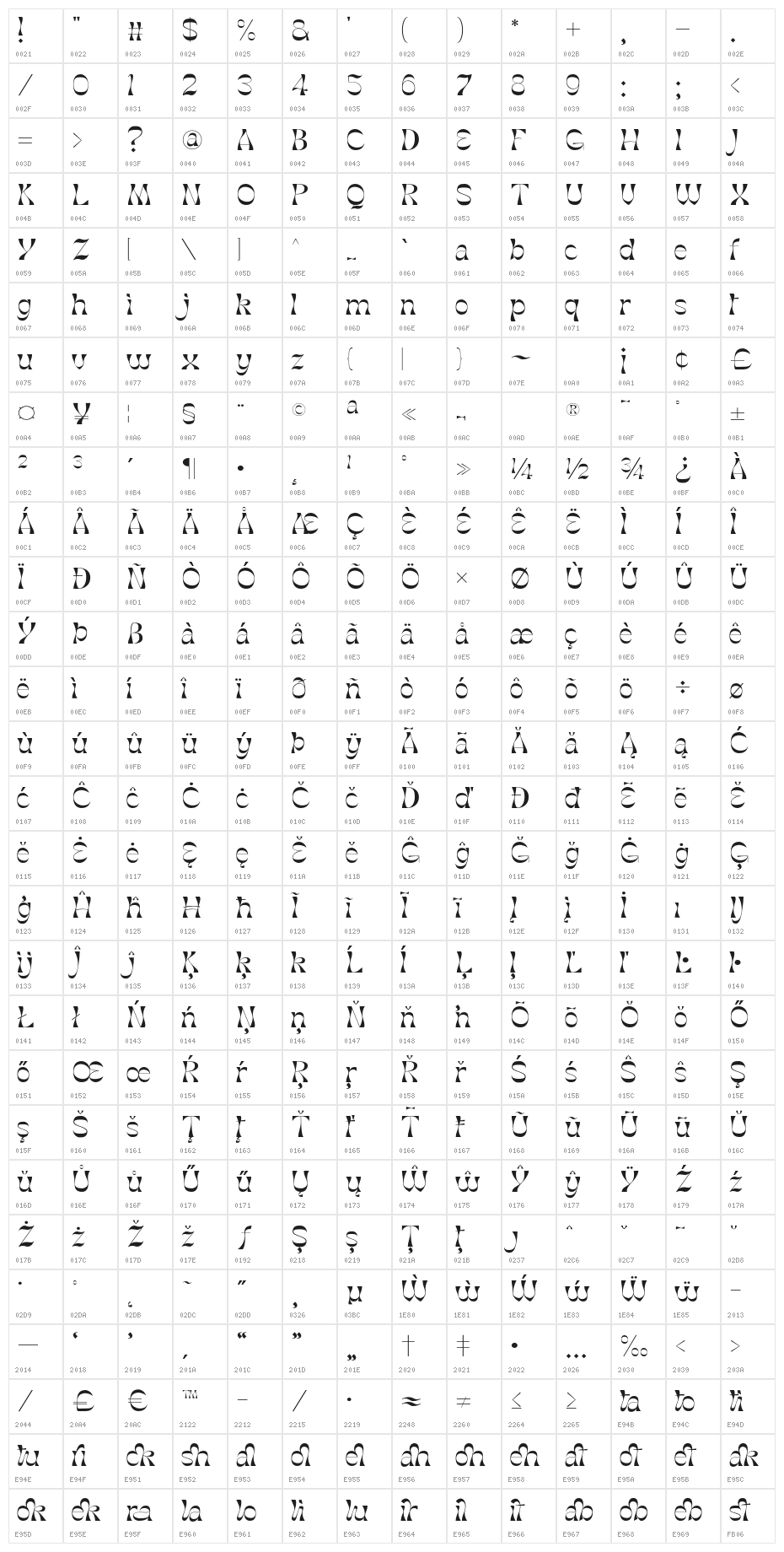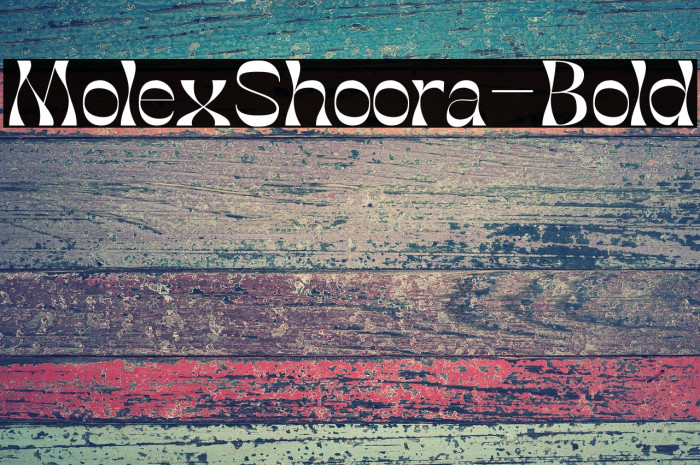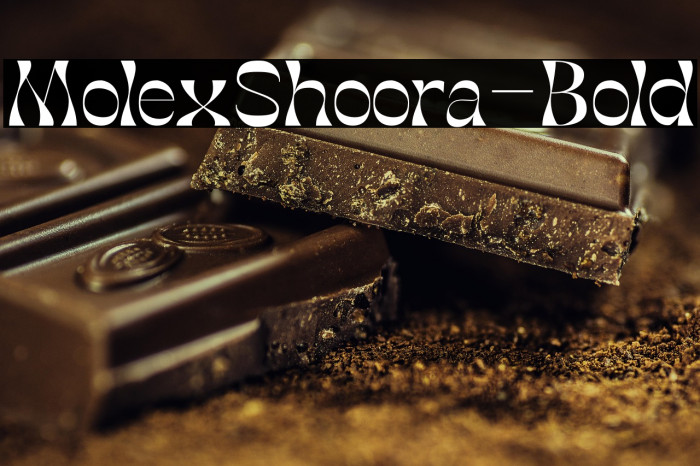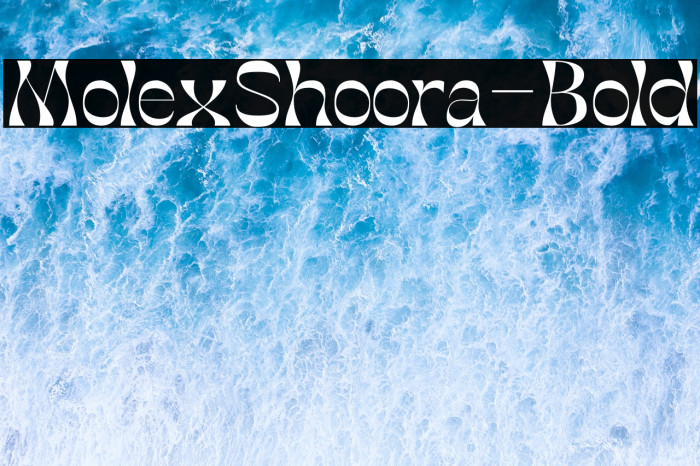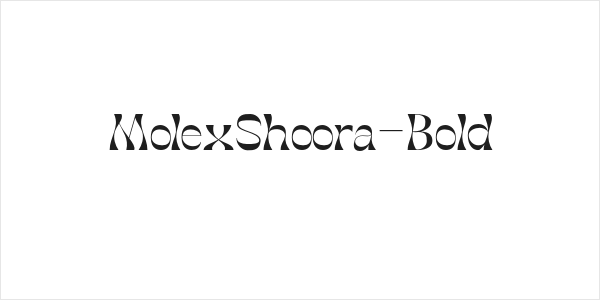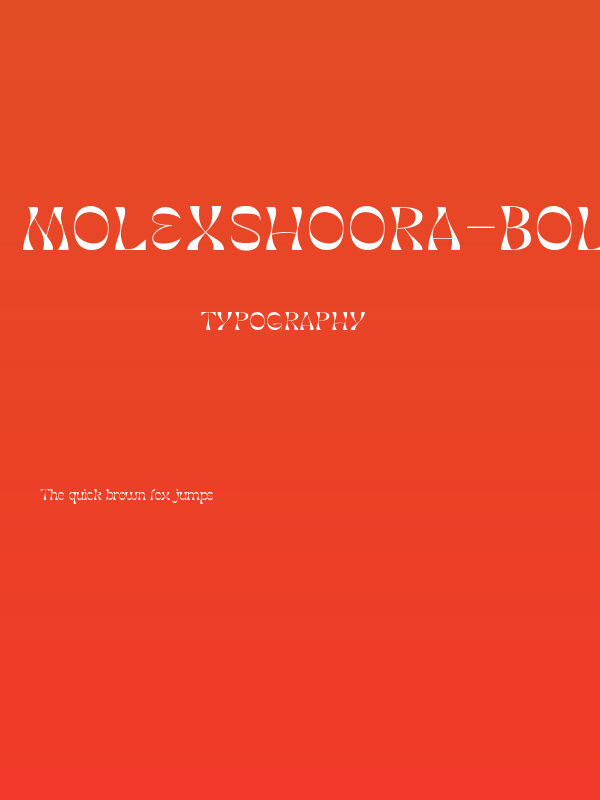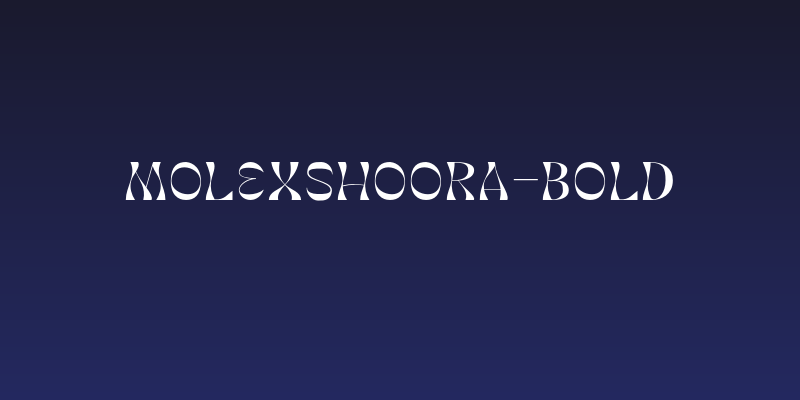
MolexShoora-Bold Font
MolexShoora-Bold Description
This font exhibits a bold and dynamic style with a unique twist on traditional letterforms. Each character features sharp, angular cuts and a distinct flair, creating a sense of movement and energy. The uppercase letters are particularly striking, with their exaggerated curves and pointed edges. The lowercase letters maintain this bold aesthetic, offering a cohesive look across the alphabet. Numbers and special characters are equally stylized, ensuring consistency throughout. This font's high contrast between thick and thin strokes adds to its dramatic appearance, making it a standout choice for eye-catching designs.
| Proposed Projects | Ideal for branding, poster design, and headlines that require a strong visual impact. |